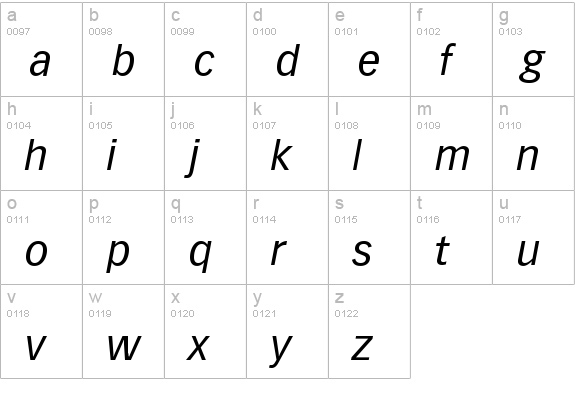
Vectora LH 56 Italic Font Details
Vectora LH 56 Italic is a distinctive, italic variant in the Vectora typeface family \xE2\x80\x94 well suited to design and typography projects.
Vectora LH 56 Italic is a visually stunning font that effortlessly combines elegance and sophistication. Its sleek and slanted design adds a touch of dynamism to any text, making it perfect for projects that require a modern and stylish appearance. Crafted with meticulous attention to detail, Vectora LH 56 Italic boasts a unique blend of curves and angles, resulting in a harmonious and eye-catching typeface. The italicized slant adds a sense of motion and energy, making it an ideal choice for conveying a sense of forward-thinking and progress. The smooth and flowing lines of Vectora LH 56 Italic lend themselves perfectly to a variety of creative applications. Whether it's for editorial design, branding, advertising, or any other project that demands a touch of sophistication, this font will effortlessly elevate your work to new heights. One of the most remarkable aspects of Vectora LH 56 Italic is that it is freely available to download at FontsMarket.com. This means that you can enjoy the exceptional quality and versatility of this font without spending a dime. With just a few clicks, you can bring this captivating typeface into your design arsenal and unlock a world of creative possibilities. So why wait? Take advantage of the opportunity to enhance your projects with the extraordinary Vectora LH 56 Italic font, and experience the seamless blend of elegance and modernity that it offers. Download it for free today at FontsMarket.com and let your creativity soar to new heights.